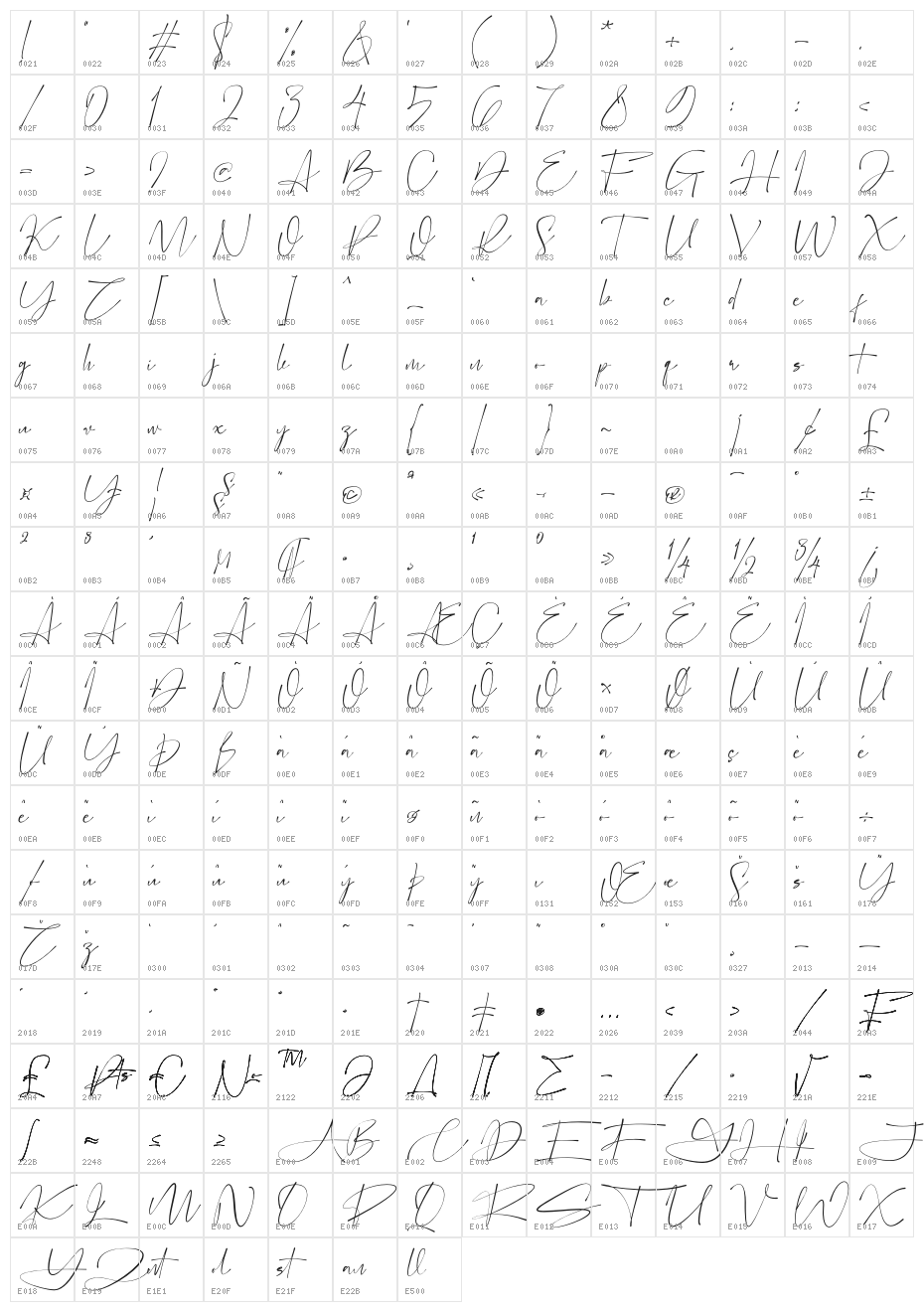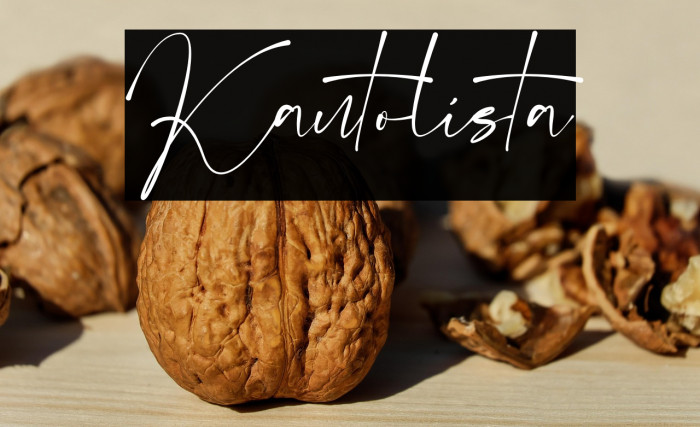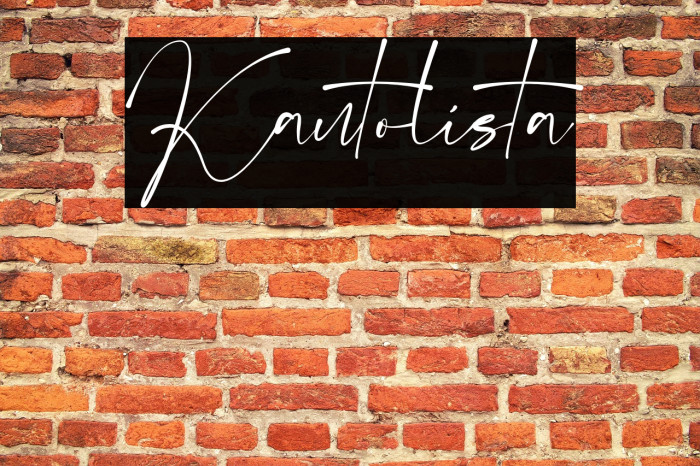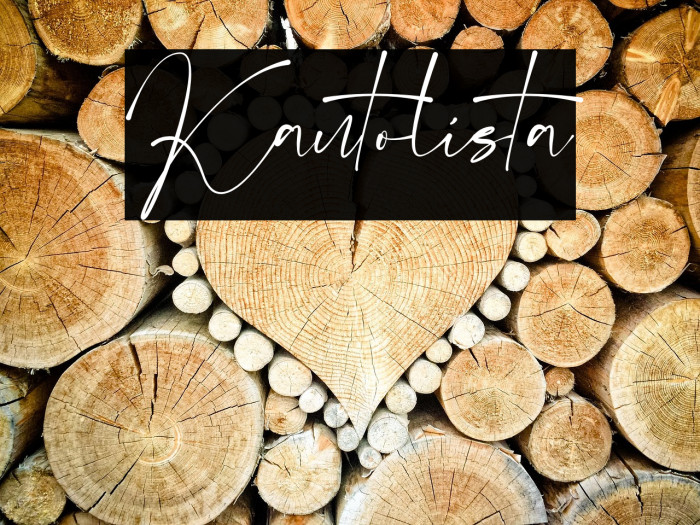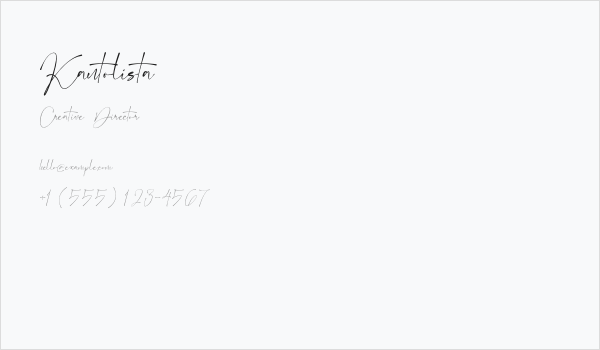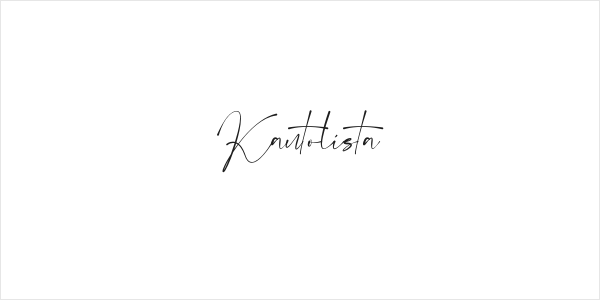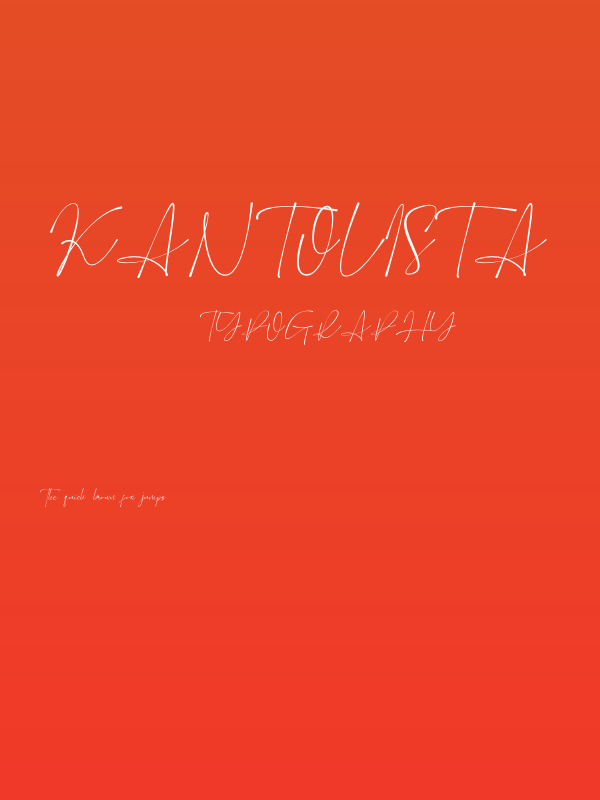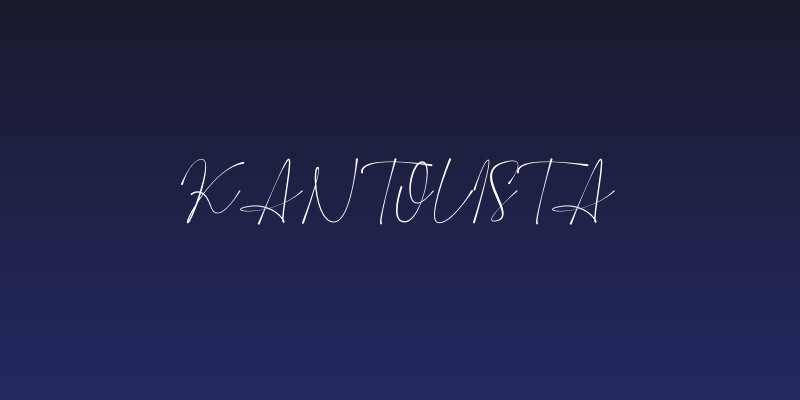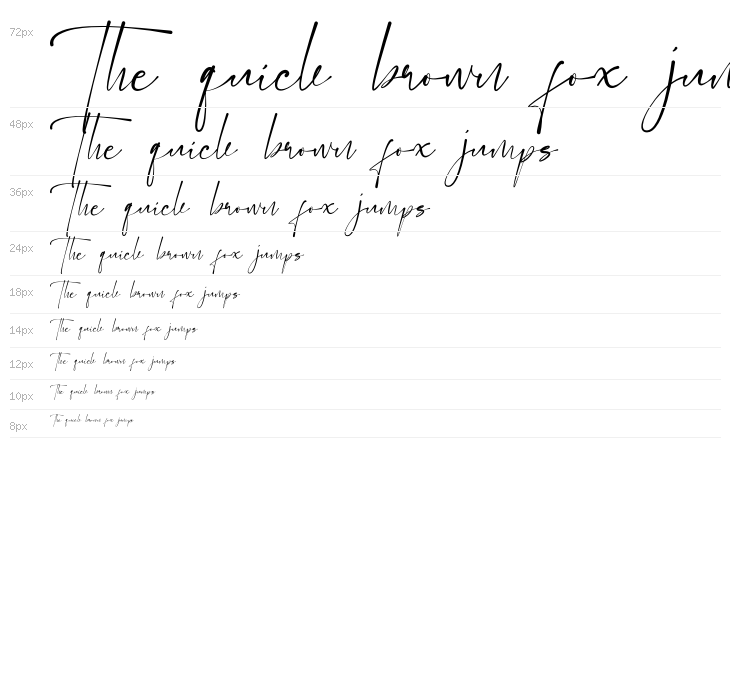
Kantolista Font
Kantolista Description
A flowing, cursive script font with a handwritten style, featuring thin strokes and a casual, elegant appearance.
| Overall Style | Elegant, Casual |
| Use Case | Logos, Invitations |
| Proposed Projects | Invitations, greeting cards, personal branding. |